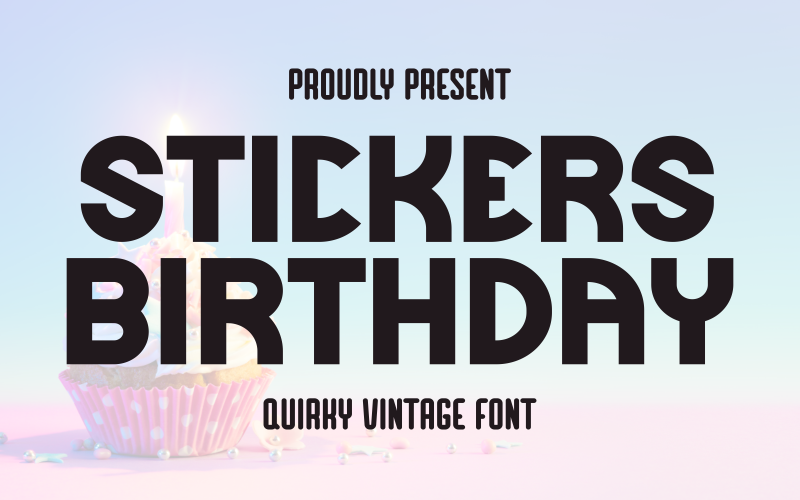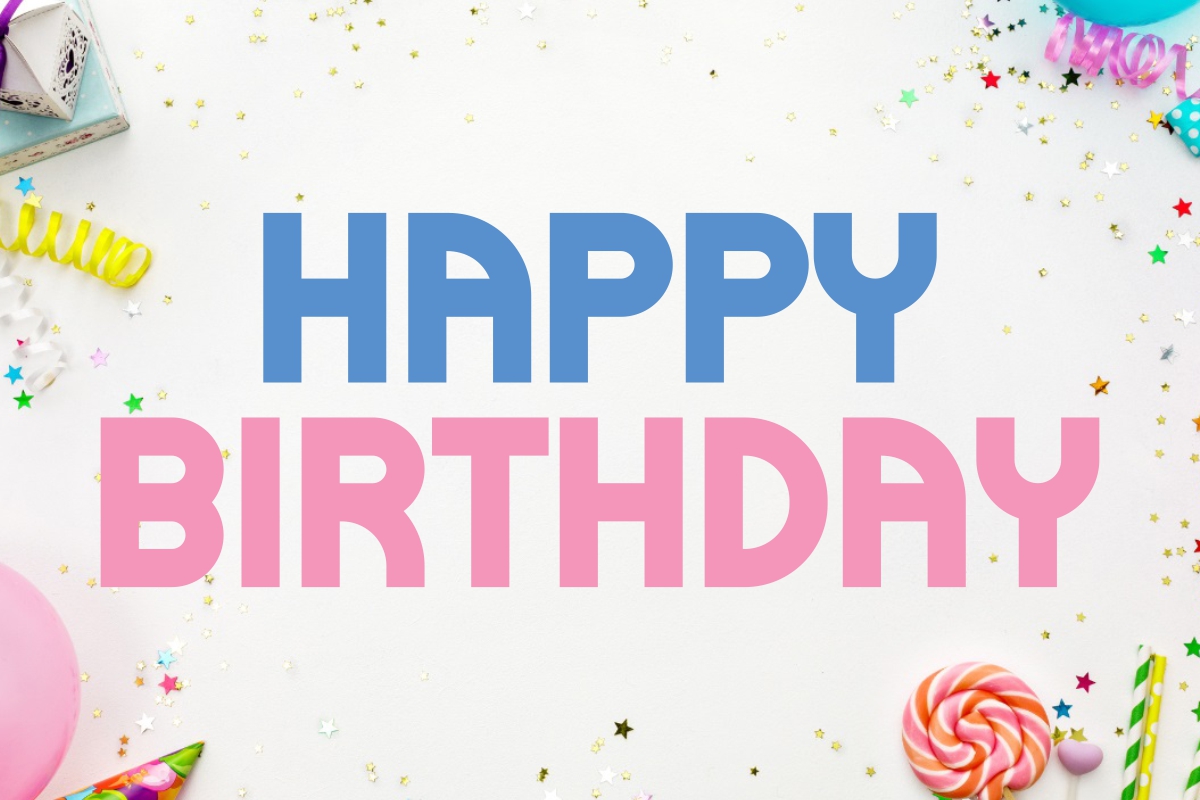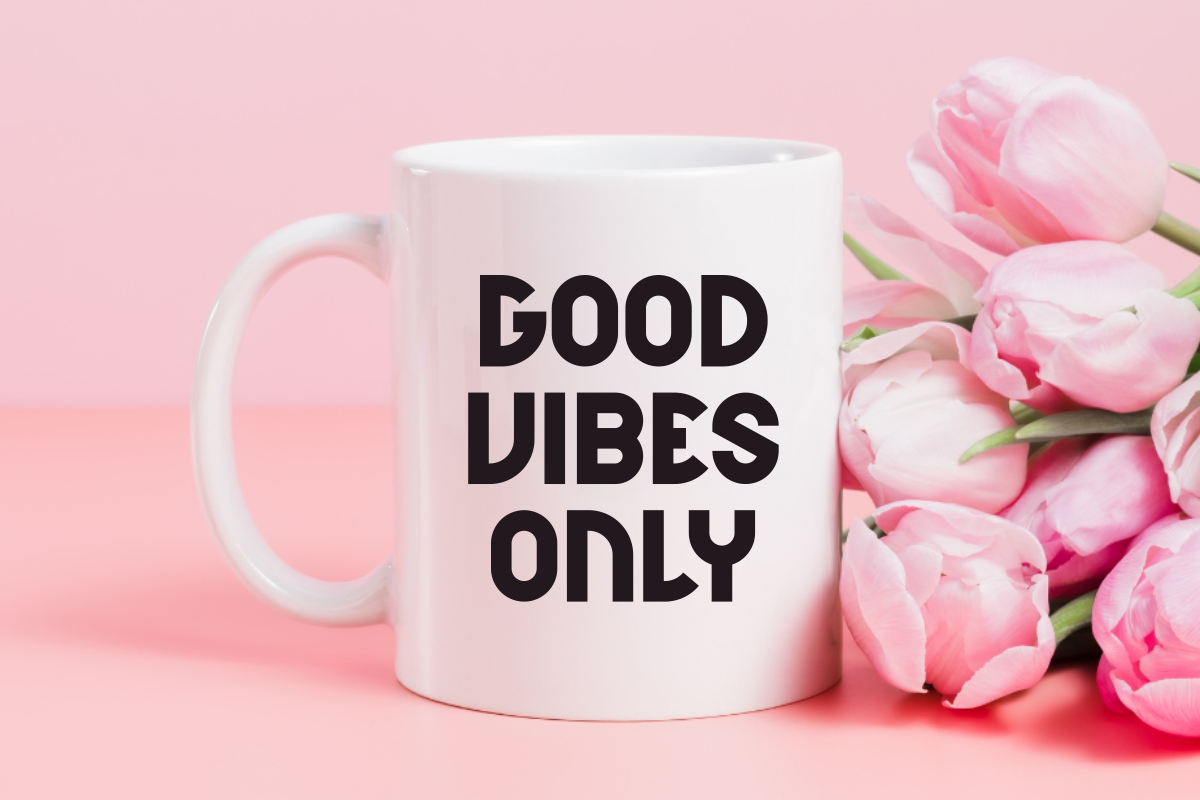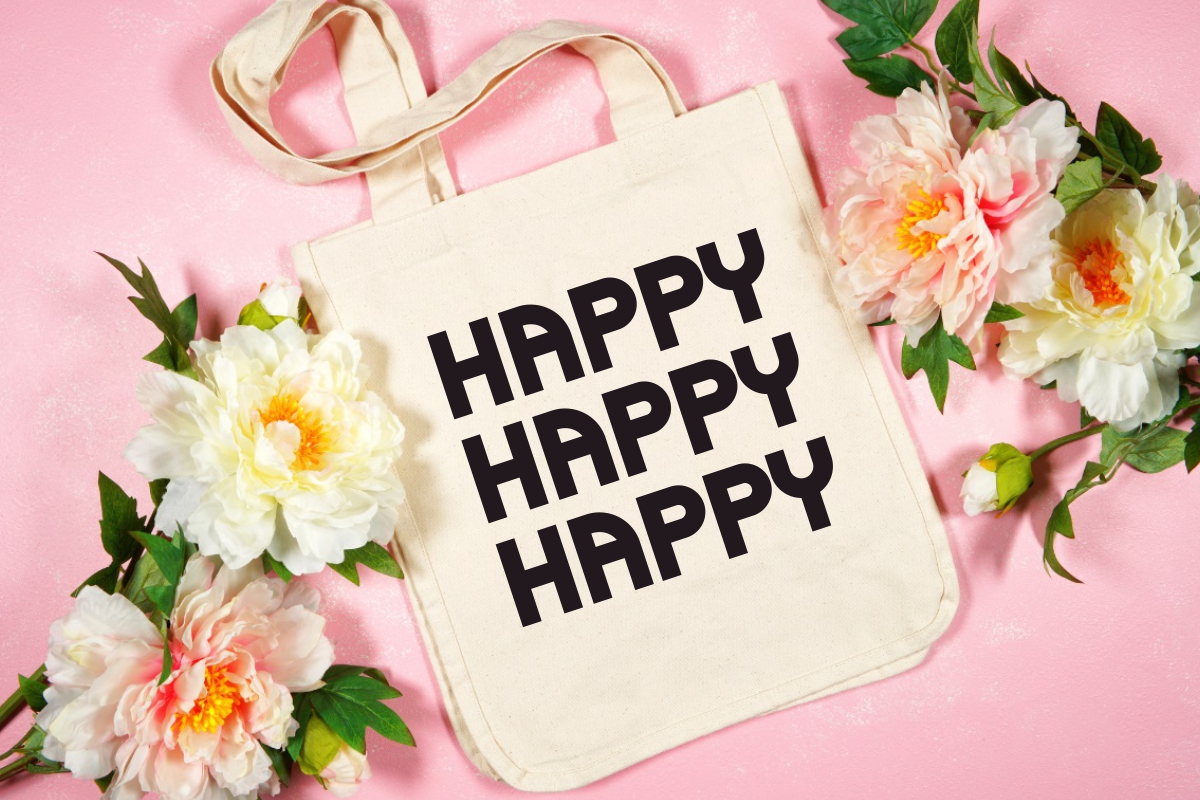
Stickers Birthday - Quirky Vintage Font
Stickers Birthday is a charmingly quirky vintage display font that radiates fun and celebration. Its friendly, bold, and slightly wide letterforms, combined with soft rounded edges, give it a distinctive retro vibe reminiscent of playful 70s and 80s typography. Ideal for invitations, greeting cards, party decor, children's products, social media graphics, and merchandise, this font is perfect for any project that needs a cheerful, lighthearted, and uniquely nostalgic touch. Stickers Birthday ensures your designs feel instantly warm, inviting, and ready for a good time.